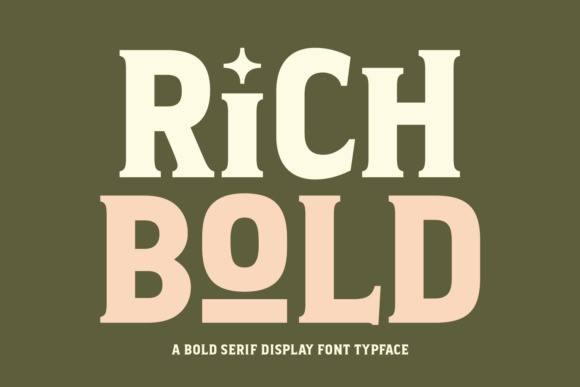
Rich Bold Font
Designer: Eightde
Rich Bold Font is a highly versatile serif display font designed to make a striking impact across a massive variety of creative projects. Characterized by its thick, eye-catching letterforms and unique creative style, this multilingual alphabet font seamlessly adapts to both modern digital designs and timeless, classic aesthetics. Whether you are crafting a standout logo, designing high fashion branding, or setting bold headlines for posters and banners, its fancy yet powerful presence ensures your titles demand attention. It is the ultimate go-to asset for procreate artists, designers, and creators looking to add a touch of cool, unique personality to product packaging, stickers, planners, and quotes.
Beyond its sleek and modern applications, “Rich Bold” perfectly captures a warm, nostalgic charm that makes it ideal for themed and seasonal content. Its rugged yet refined edges give it a distinct western, cowboy, and country flair, while its sturdy structure makes it an excellent choice for sports jerseys, college apparel, varsity jackets, and school themed merchandise. From playful kids’ book titles and teacher planners to festive holiday designs for Thanksgiving, birthdays, and summer celebrations, this font brings life to t-shirts, tumblers, and farmhouse style crafts alike.